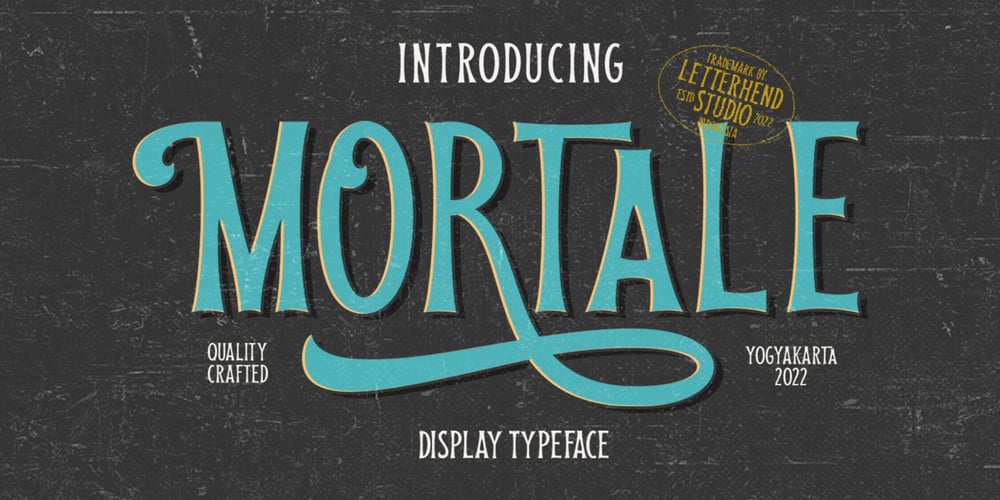
Mortale Font Family was designed by Hendry Juanda and published by Letterhend. Mortale contains 2 styles and family package options. Mortale is a display font a typeface which is inspired by vintage lettering. Very suitable for for headline, logotype, apparel, invitation, branding, packaging, advertising etc with old school / vintage as well as modern theme. Features : Uppercase & lowercase Numbers and punctuation Alternate & Ligatures Multilingual PUA encoded We highly recommend using a program that supports OpenType features and Glyphs panels like many of Adobe apps and Corel Draw, so you can see and access all Glyph variations.